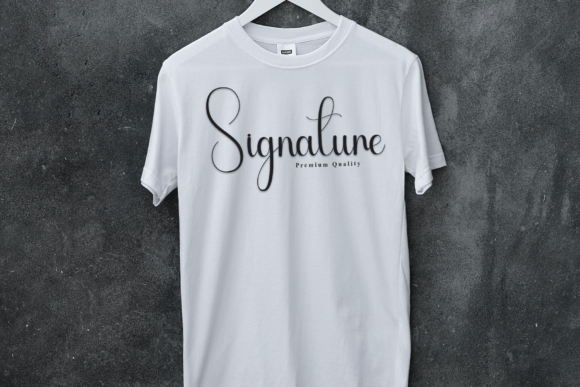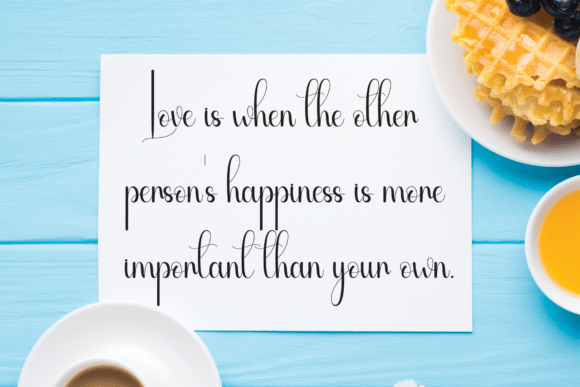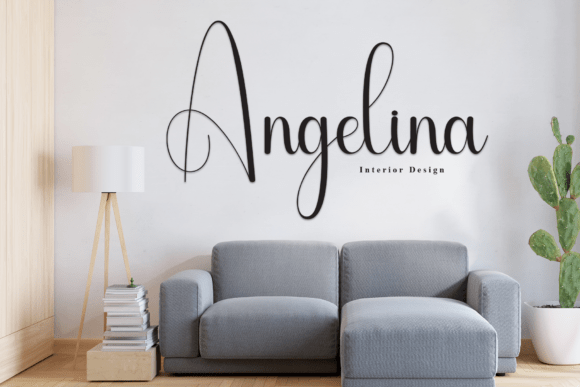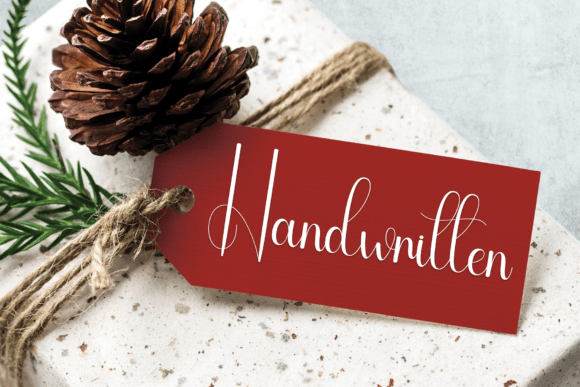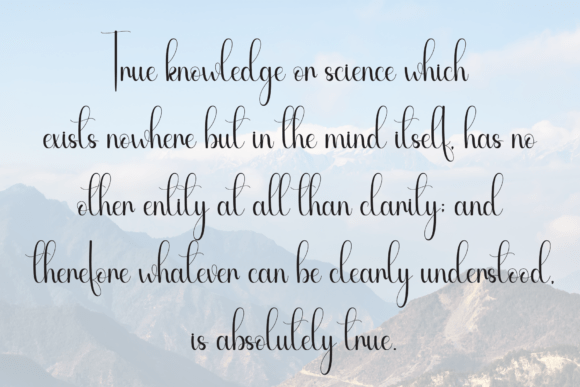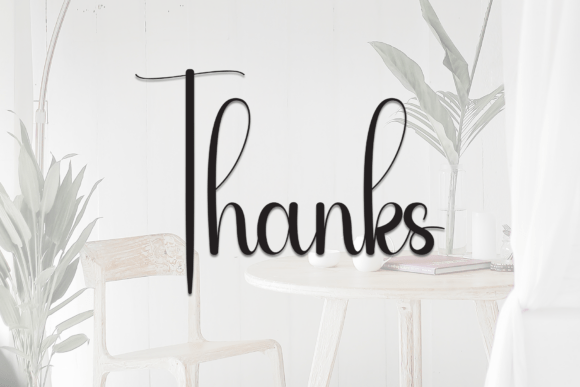
Introduction to New Minimalist Font
Unveiling the charming persona of the handwritten display font, this delightfully warm and friendly typeface is the perfect companion for your creative endeavors.
Immerse in its lighthearted energy ideal for enlivening wedding invites, sprucing up cards or illuminating any design craving a playful stroke Revel in its sweetness, captivate with its fun-filled persona and add a sprinkle of creative magic to your designs.